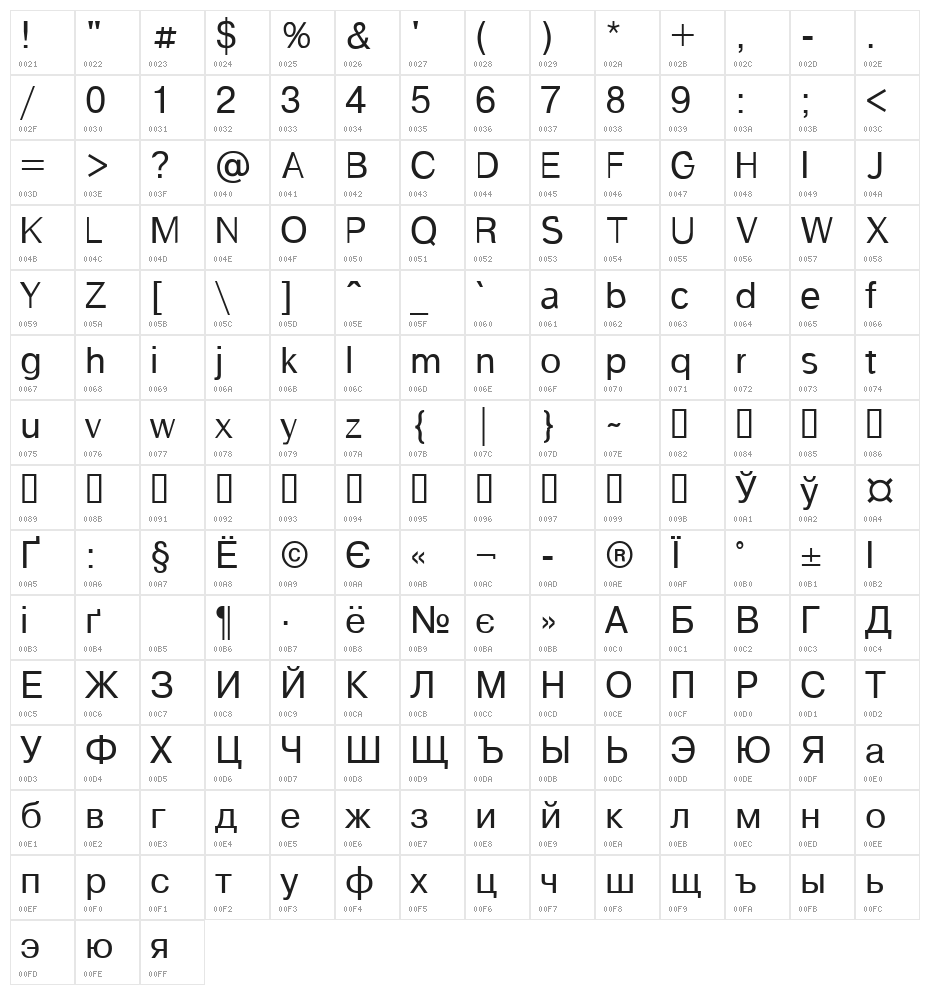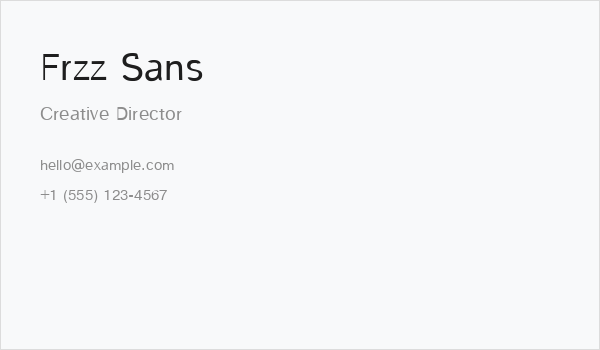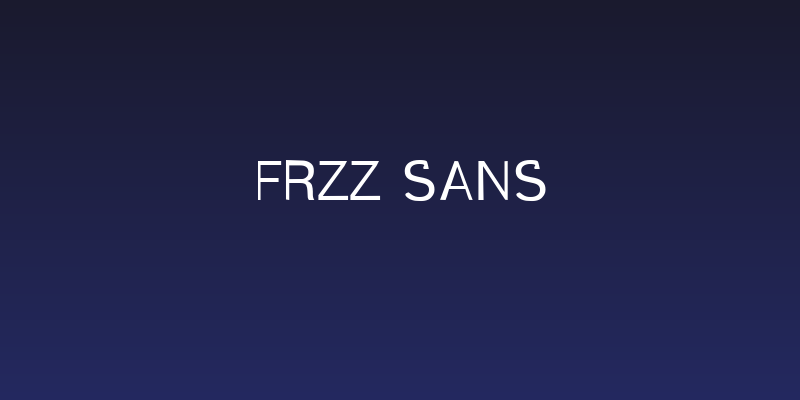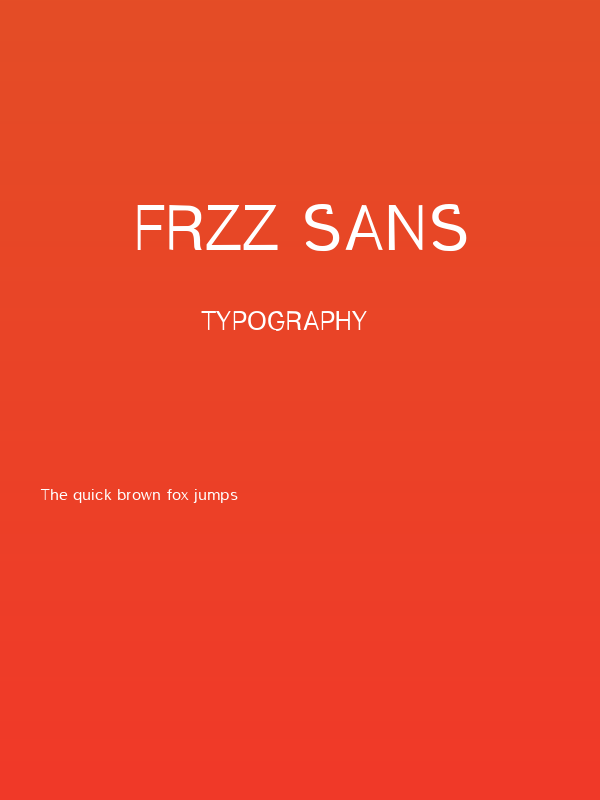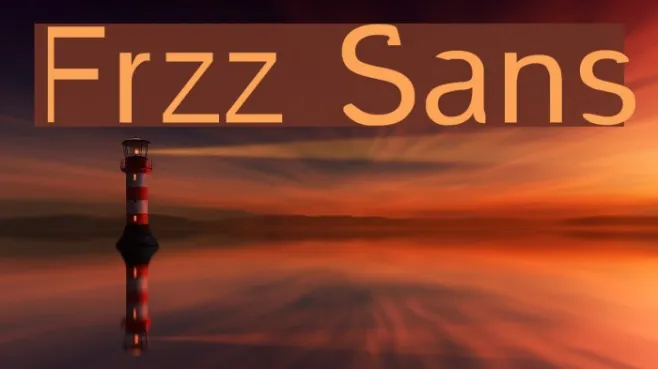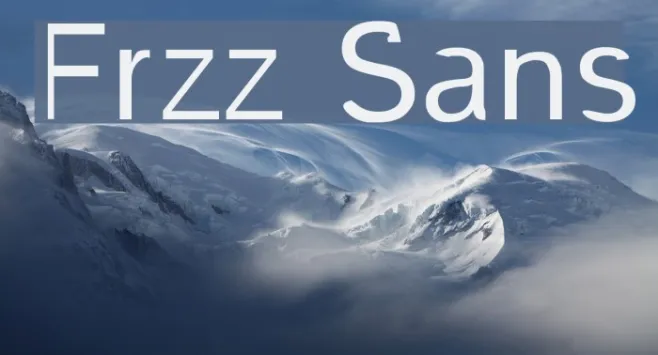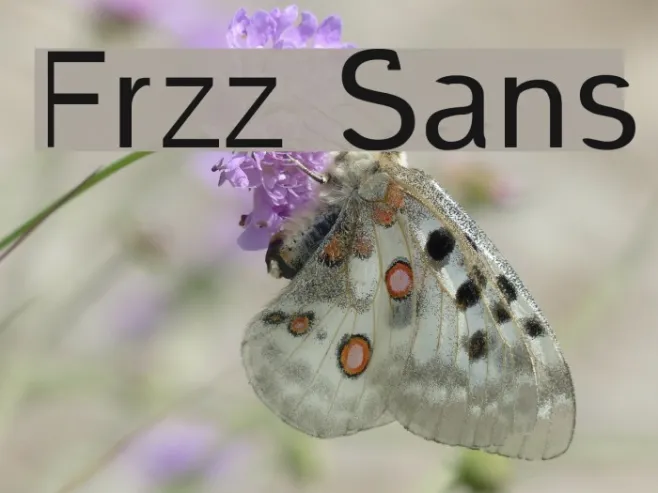
Frzz Sans Font
Frzz Sans Description
This typeface presents a clean and modern sans-serif design, characterized by its uniform stroke width and geometric shapes. The letters are well-proportioned, offering a balanced and harmonious appearance. The uppercase and lowercase letters maintain a consistent style, with rounded edges that add a subtle softness to the overall look. The numerals are clear and legible, making them suitable for a variety of applications. Special characters are included, enhancing the font's versatility. Its simplicity and clarity make it ideal for both digital and print media.
| Proposed Projects | Ideal for branding, web design, advertising, and editorial layouts. |